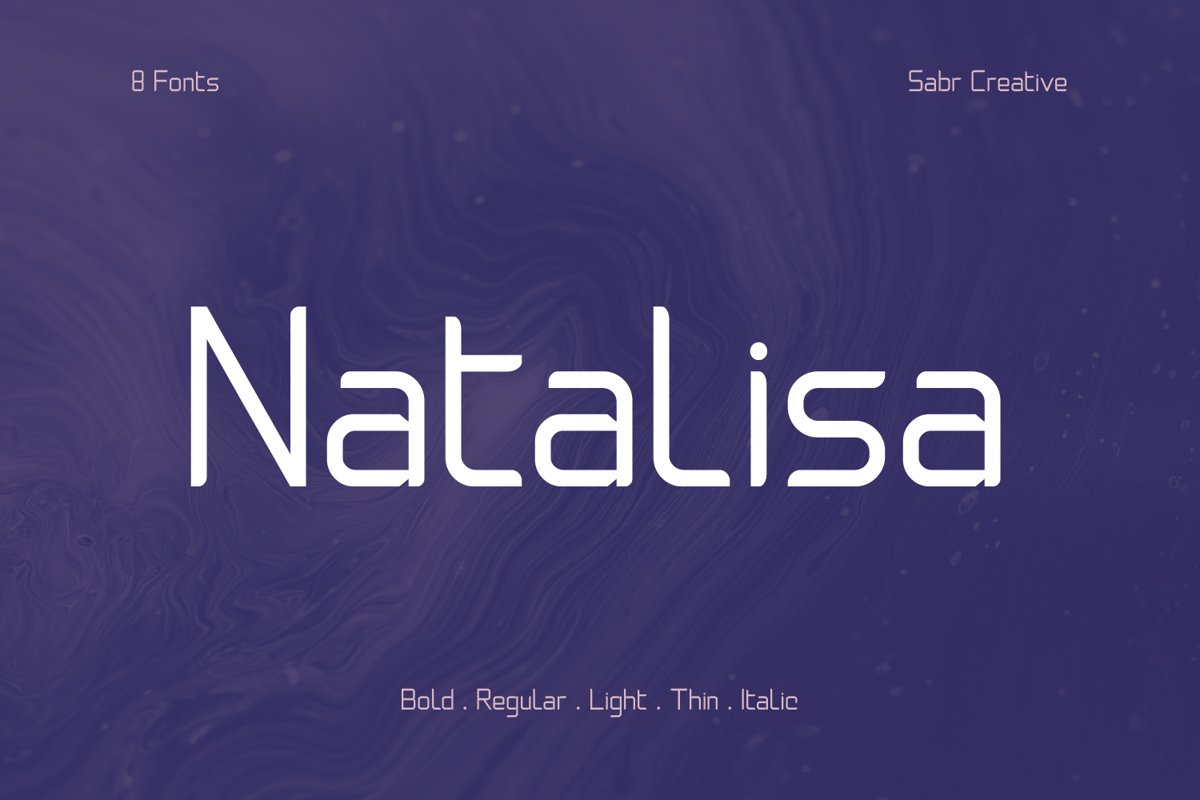
Natalisa
Natalisa font family with futuristic font style, slightly
expanded, without rounded serifs that provide a softened aesthetic without
losing its solidity. Natalisa is suitable for various design projects that want
to display a futuristic, clean, simple impression.